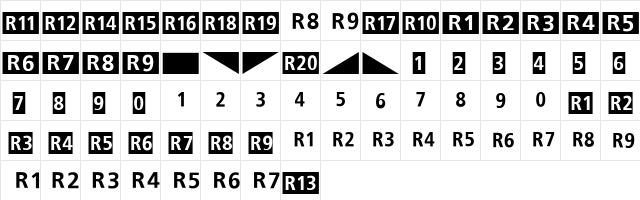
TransitLinie-R Regular
Design Context for TransitLinie-R Typeface
TransitLinie-R offers clean, dependable letterforms without strong stylistic allegiance, making it a practical choice for designers who need flexibility.